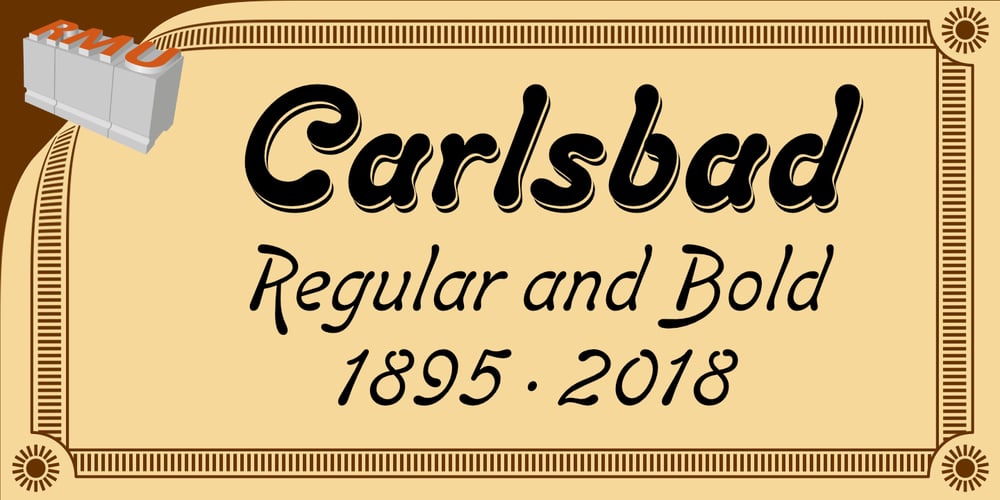
Carlsbad
Carlsbad font
Carlsbad Font Family was designed by Ralph M. Unger and published by RMU. Carlsbad contains 2 styles and family package options. The Carlsbad font family is a bringing together of Regina Cursiv and Hansa Cursiv which both had been released by H. Berthold Messinglinienfabrik und Schriftgiesserei around 1895. Both these beautiful Art Nouveau italic fonts come with the following swash alternatives: D, E, G, H, K, S, T, h, k, m, n, s, and z.